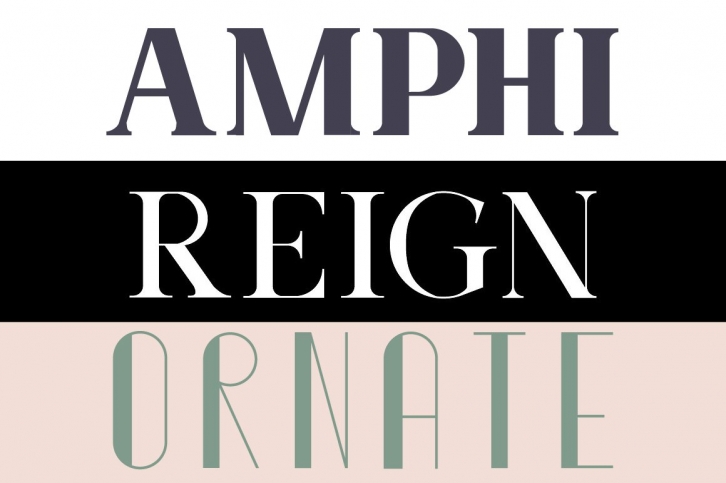
Serif typeface pack that includes 3 different type families.
Reign is a sophisticated & simple serif typeface. Works great for logos & titles on a large or small scale. Pairs great with simple sans serif fonts. Includes regular and stencil.
Amphi is a bold & sturdy serif typeface taken influence from ancient roman style architecture. Comes with regular, stencil and broken.
Ornate is a modern take on old Art Deco style typefaces. All caps, comes with numeral and basic punctuation.